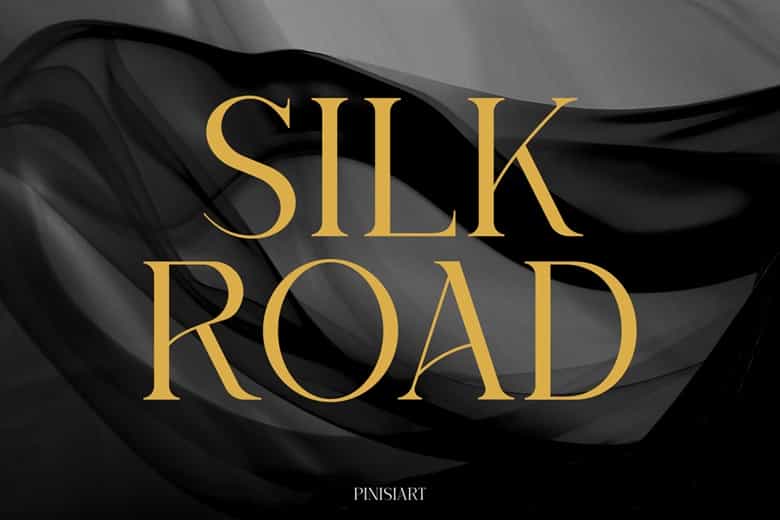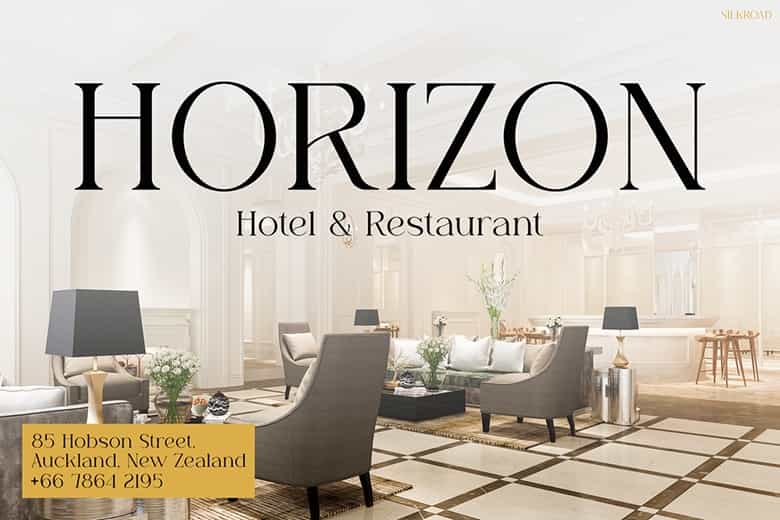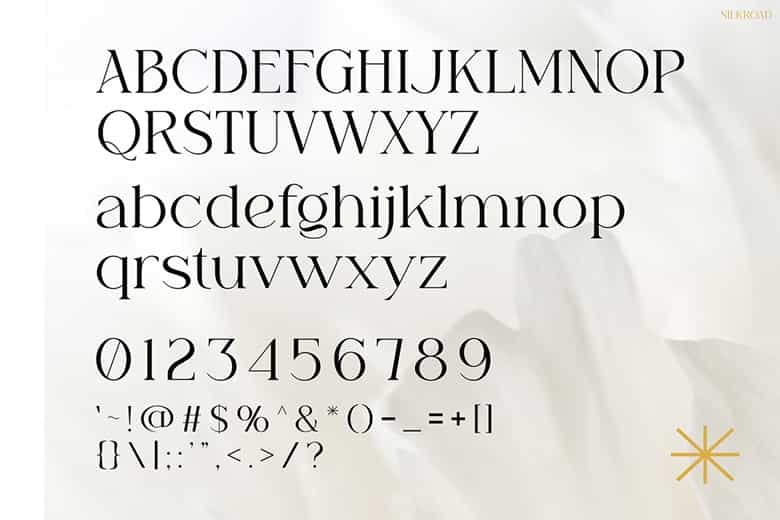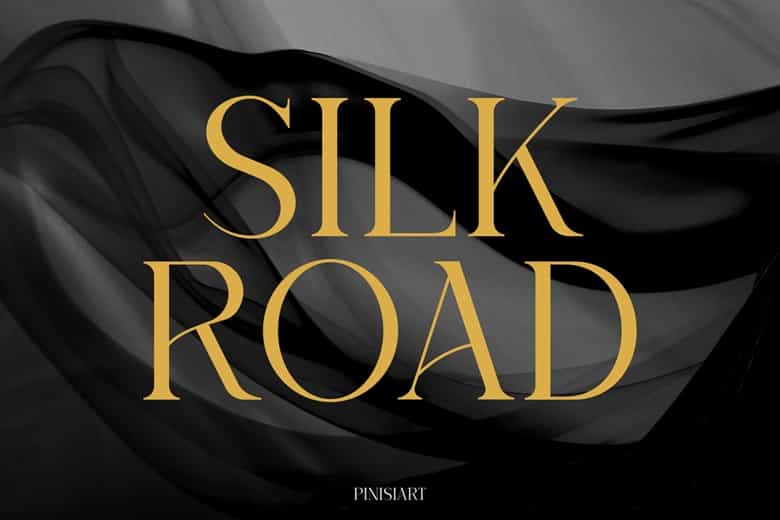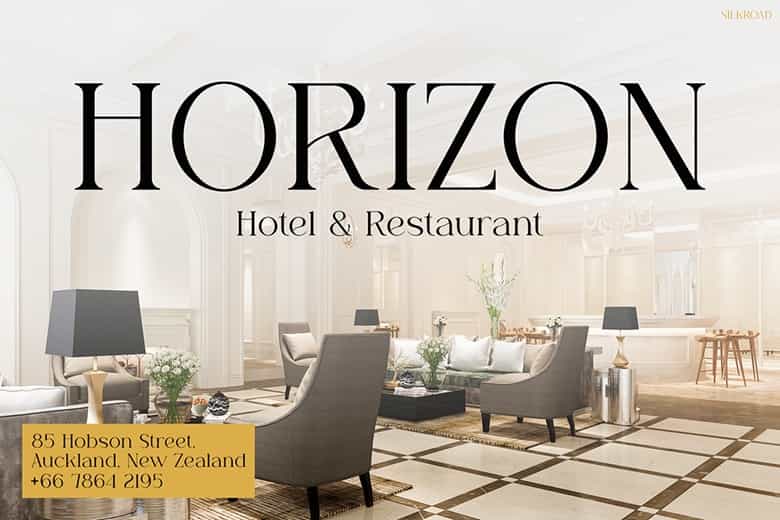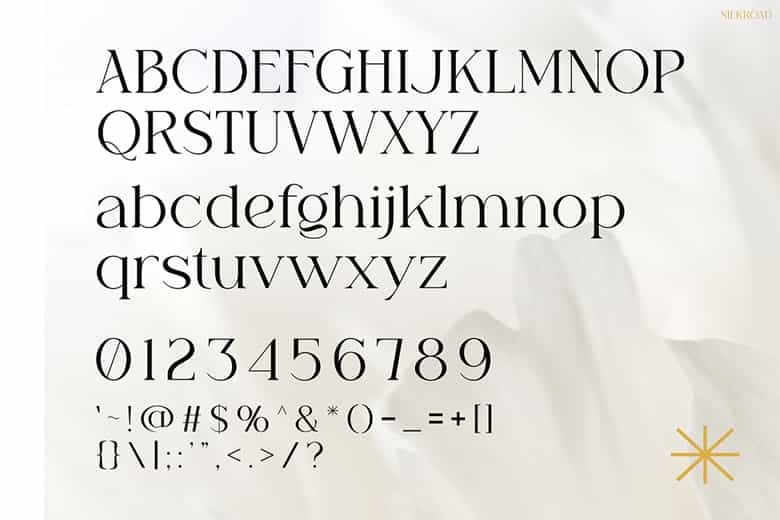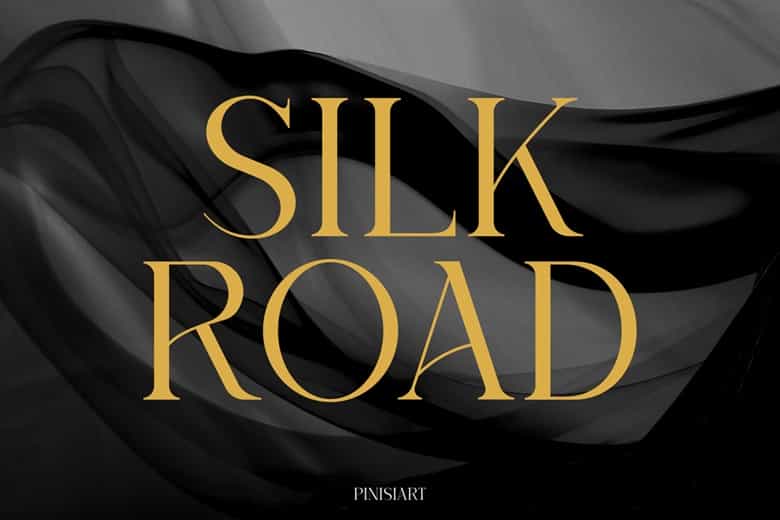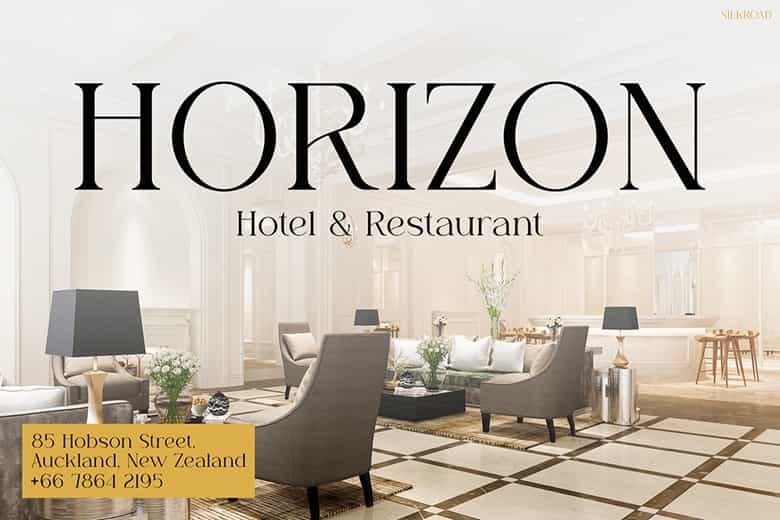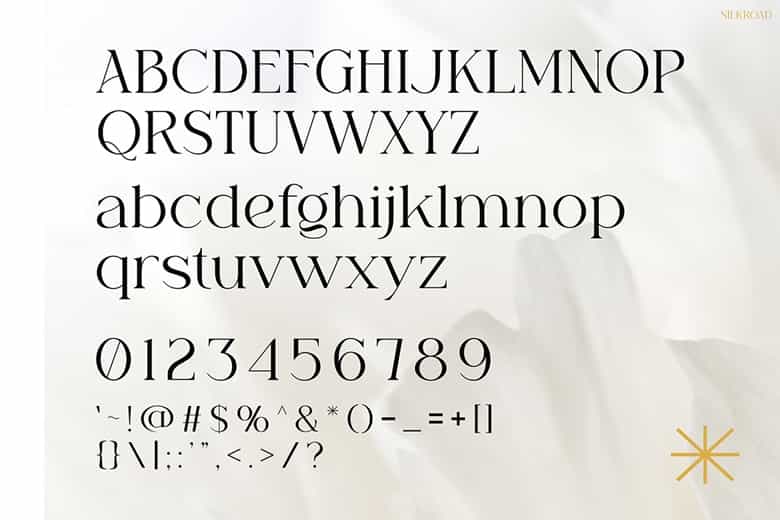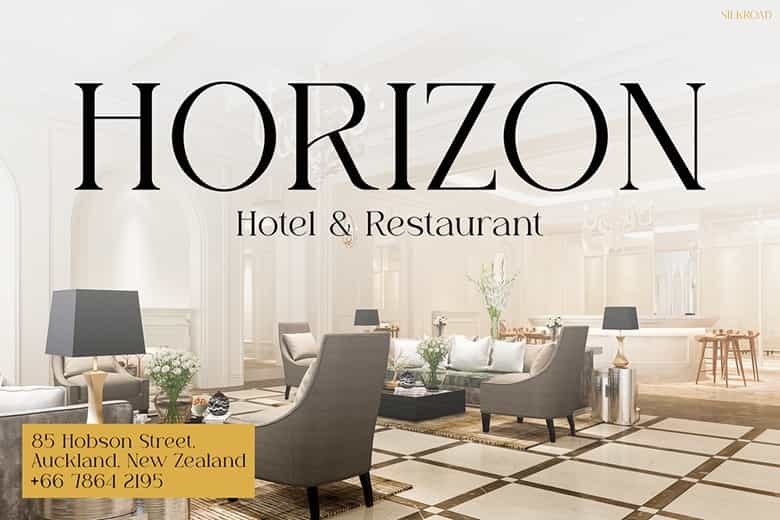
Silkroad is a sophisticated serif font, which can be described as a combination of past aesthetics and modern style. It is ideal for edgy branding and clean, up-scale graphics. Each stroke is purposeful and brings a hint of extravagance. The difference in Silkroad is that it is not softer with a straight style as being sexy. It is characterized by beautiful curves, peculiar ligatures, and well spaced characters. Furthermore, it is very versatile and can be adopted in either digital or print. Scrolling through your meticulous Instagram quotes or reading the layout of your editorial, Silkroad contains that glamorous touch to your message.